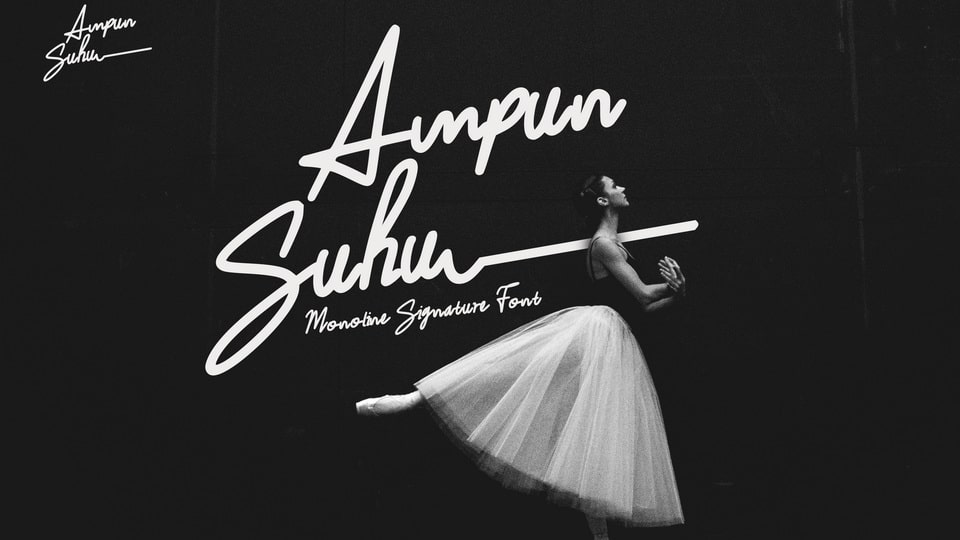
Download Ampunsuhu font, a handwritten monoline signature style typeface that adds an air of sophisticated elegance and modern flair to your designs. Ampunsuhu font features a refined and minimalistic design, with each letter exuding a sense of sleek simplicity.